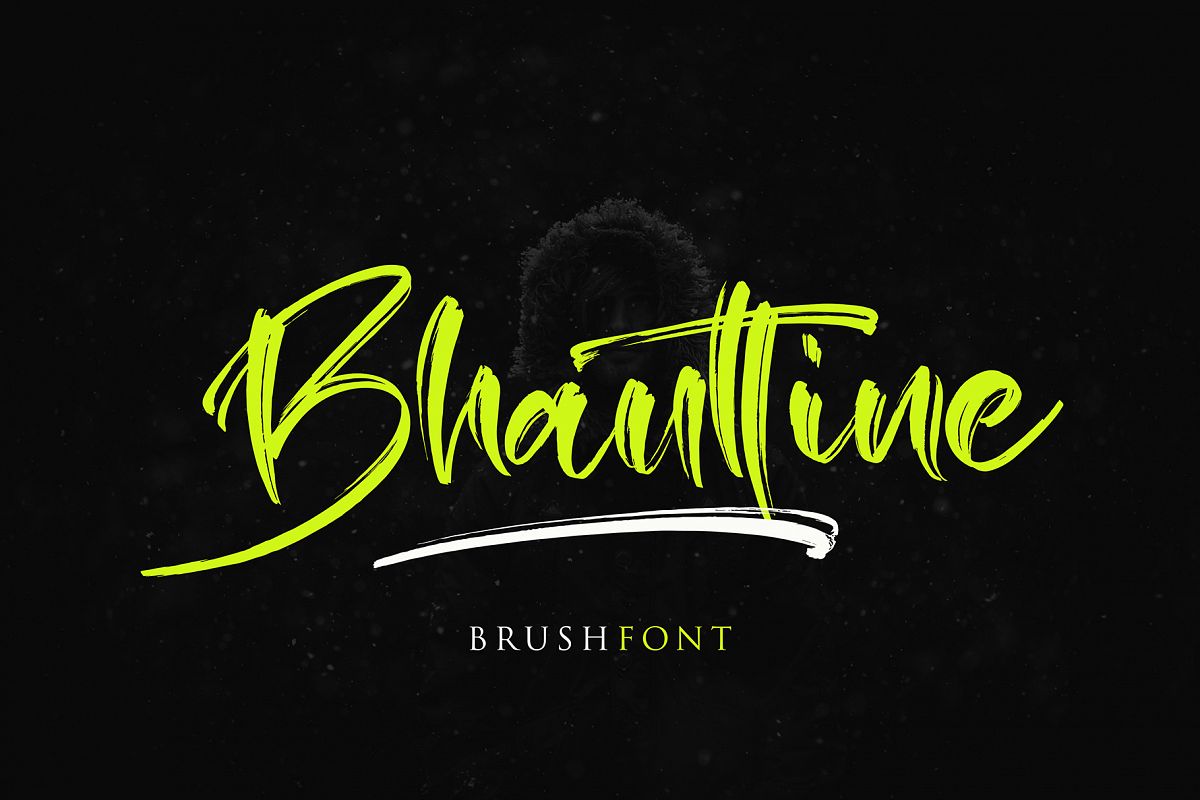
Bhauttine
Bhauttine brush font, this font will perfect for many different project ex: quotes, logo, blog header, poster, banding, fashion, apparel, letter, invitation, stationery, etc...